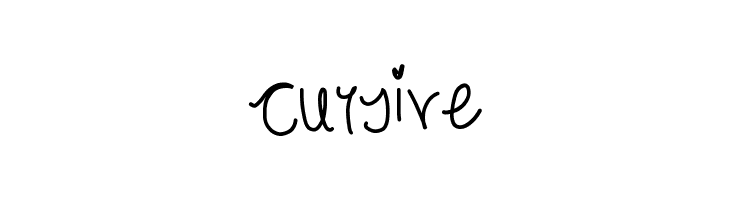
Chaque police phare se distingue par équilibre, lisibilité et polyvalence. Vous trouverez des sans‑serifs modernes, des scripts élégantes, des serifs vintage et des displays minimalistes.
A playful, bold font with rounded, smooth letterforms and a whimsical, handwritten style.
A bold, playful font with rounded edges and a modern, whimsical style.
A playful and bold font with a hand-drawn, whimsical style.
A bold, brush-style font with dynamic, hand-painted strokes.
A balanced serif font with a modern touch, offering elegance and readability.
A bold, playful font with a hand-crafted, dynamic appearance.
A bold, italic serif font with a modern and dynamic style.
A modern, semi-bold italic font with medium contrast and a sleek design.
A playful, casual handwritten font with dynamic and uneven strokes.
A bold, blackletter-inspired font with ornate serifs and dramatic flair.
A bold, expanded, and italic font with a modern, dynamic style.
A bold, italicized font with a modern, dynamic style.
A bold, handwritten font with a brush-like texture and dynamic style.
An elegant calligraphic font with ornate flourishes and a graceful flow.
A bold, playful handwritten font with thick strokes and dynamic shapes.
A modern sans-serif font with a clean, professional look and slightly condensed structure.
A bold, hand-drawn font with a playful and energetic style.
A bold, distressed font with jagged edges and a grunge-like, rebellious aesthetic.
A bold, geometric font with a futuristic double-line design.
A bold, playful font with rounded, hand-drawn characters.
A modern, monospaced typeface with clean lines and uniform spacing.